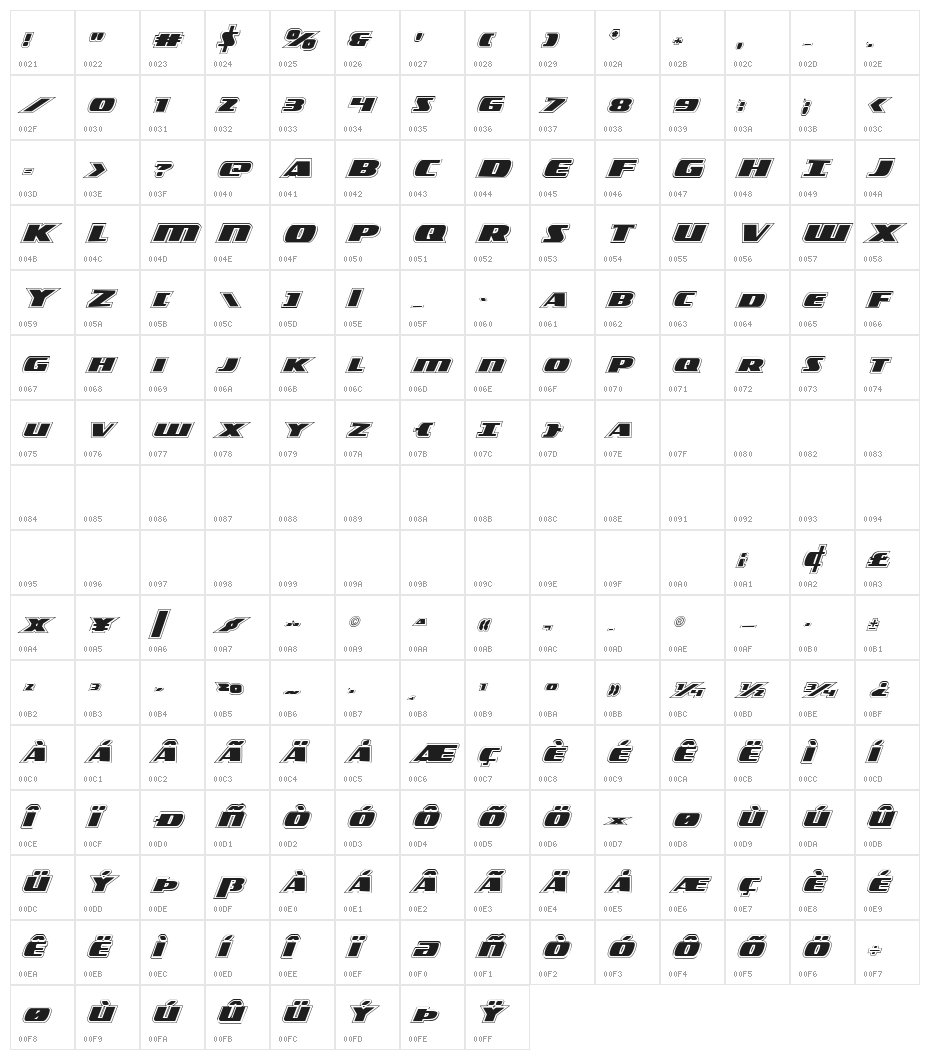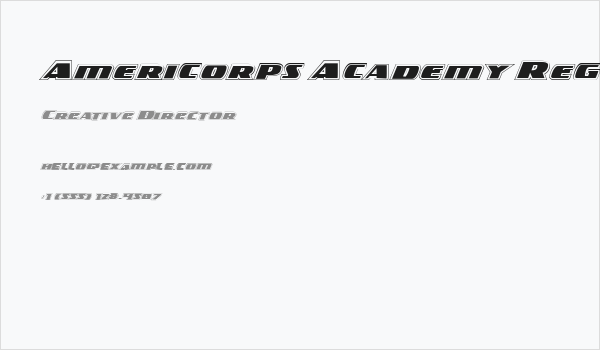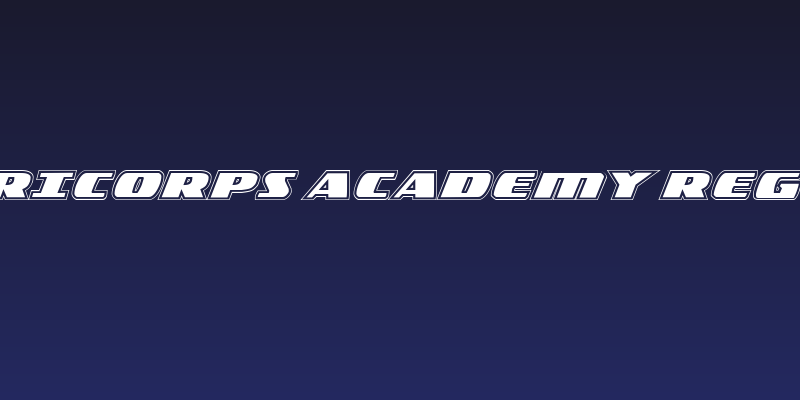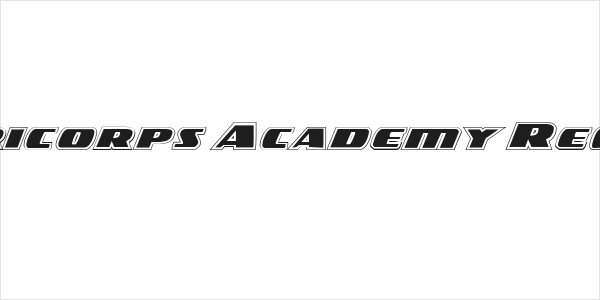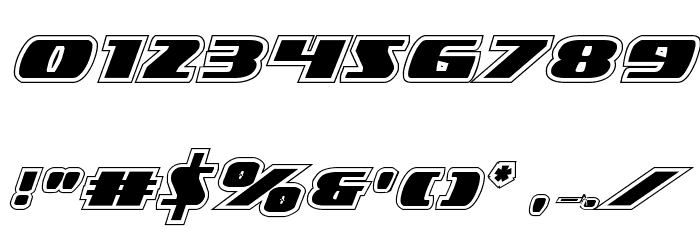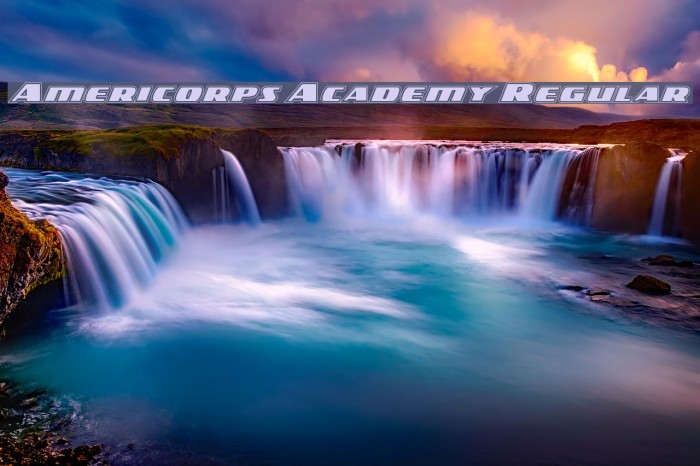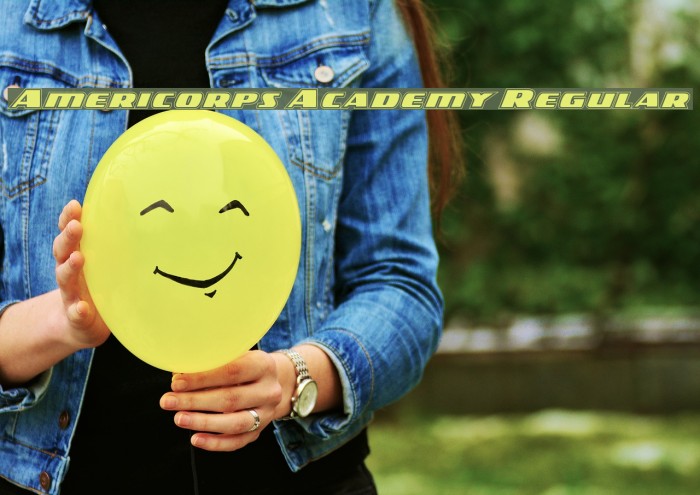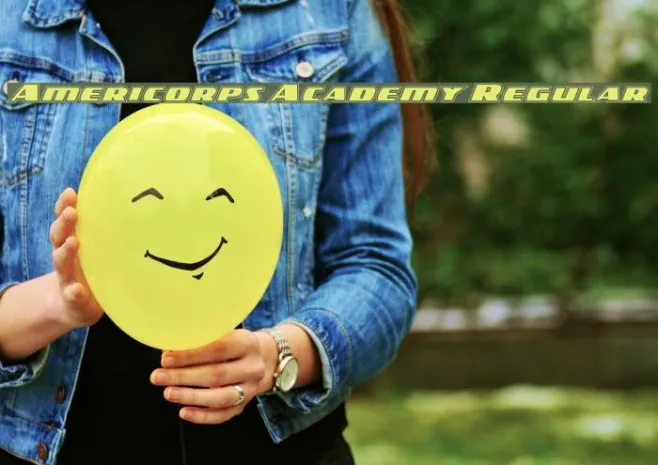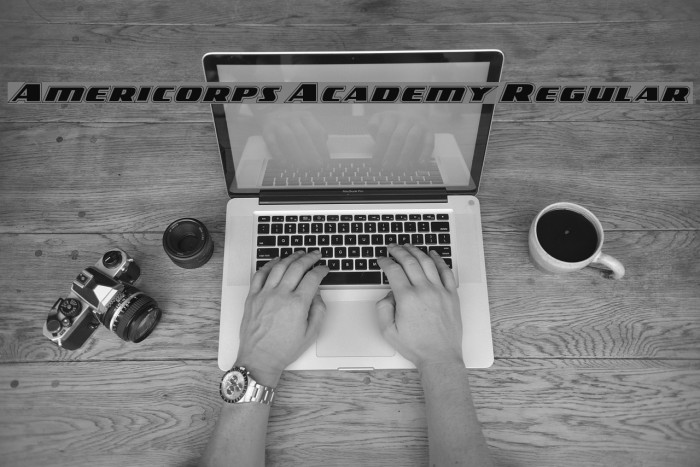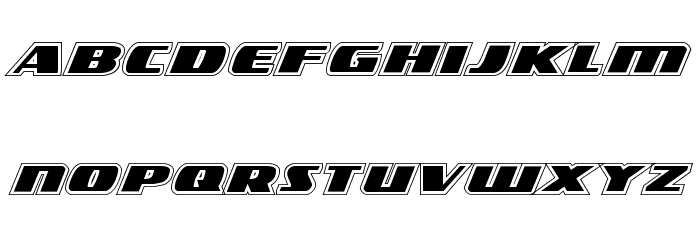
Americorps Academy Regular Font
Americorps Academy Regular Description
This font features a bold and dynamic style with a strong presence. The characters are designed with a slight slant, giving them a sense of motion and energy. The boldness of the letters is accentuated by a thick outline, creating a striking contrast between the inner and outer edges. The font maintains a consistent width across all characters, ensuring uniformity and balance. It is well-suited for projects that require a modern and impactful look, such as sports branding, posters, and headlines. The numbers and special characters are crafted with the same attention to detail, making them cohesive with the overall design.
| Proposed Projects | Sports branding, posters, headlines, logos, and advertising materials. |